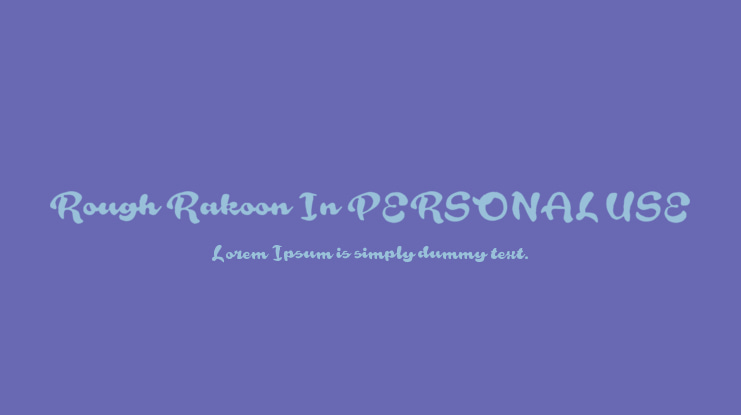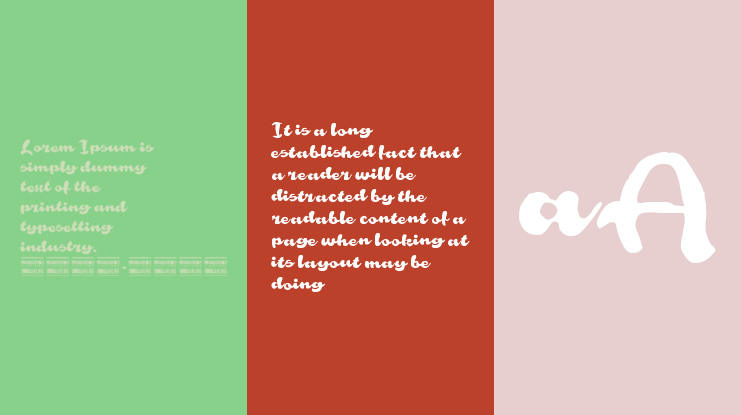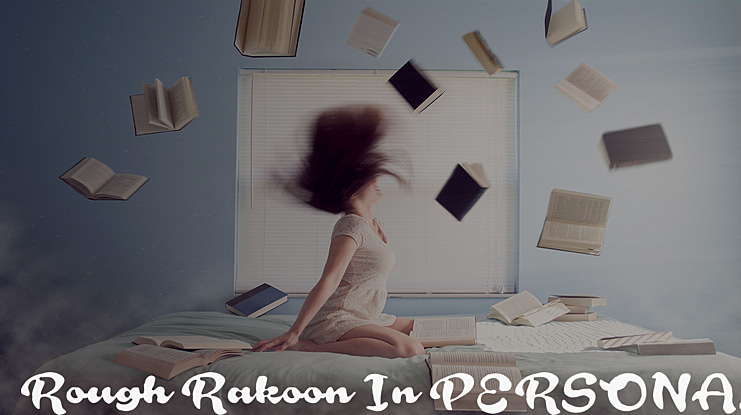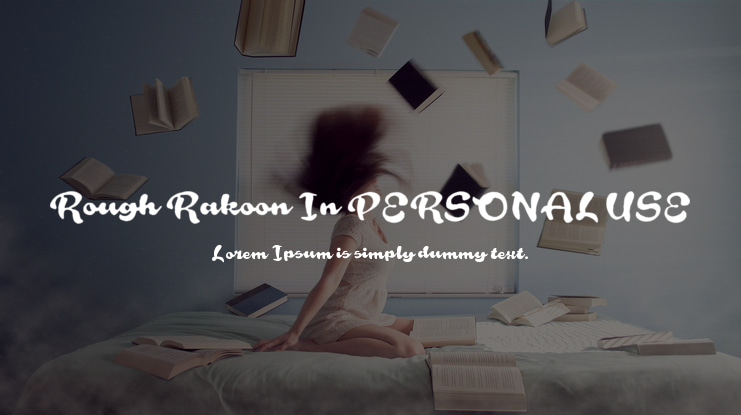
Rough Rakoon In PERSONAL USE Font Family
This font works best with contextual alternates.
If your software does not support contextual alternates, you
can write [ ] around the word to make the outline connect.
Example: [ rakoon ]
Or try () and {} for swashes!
Example: {cool} (swash)